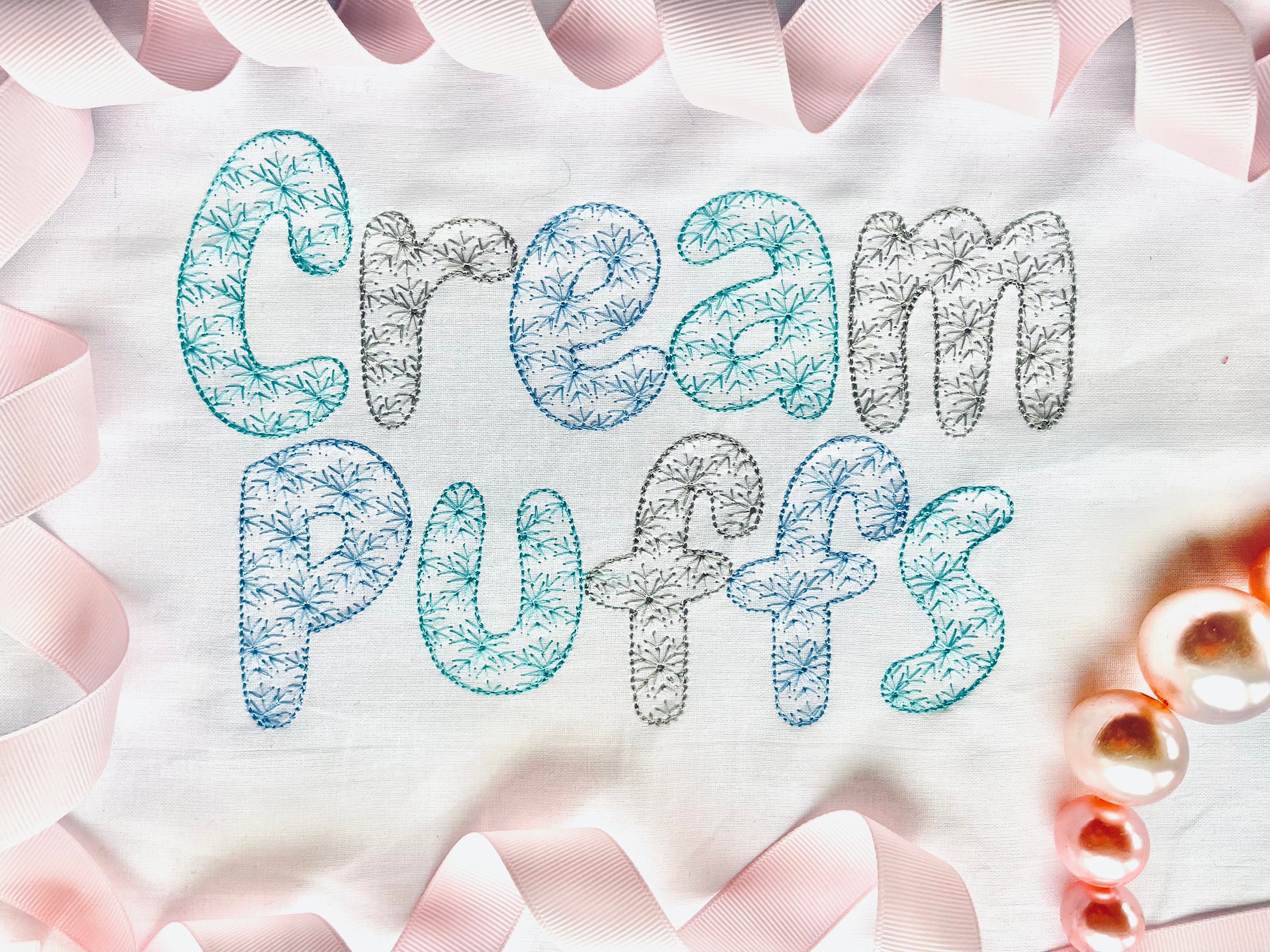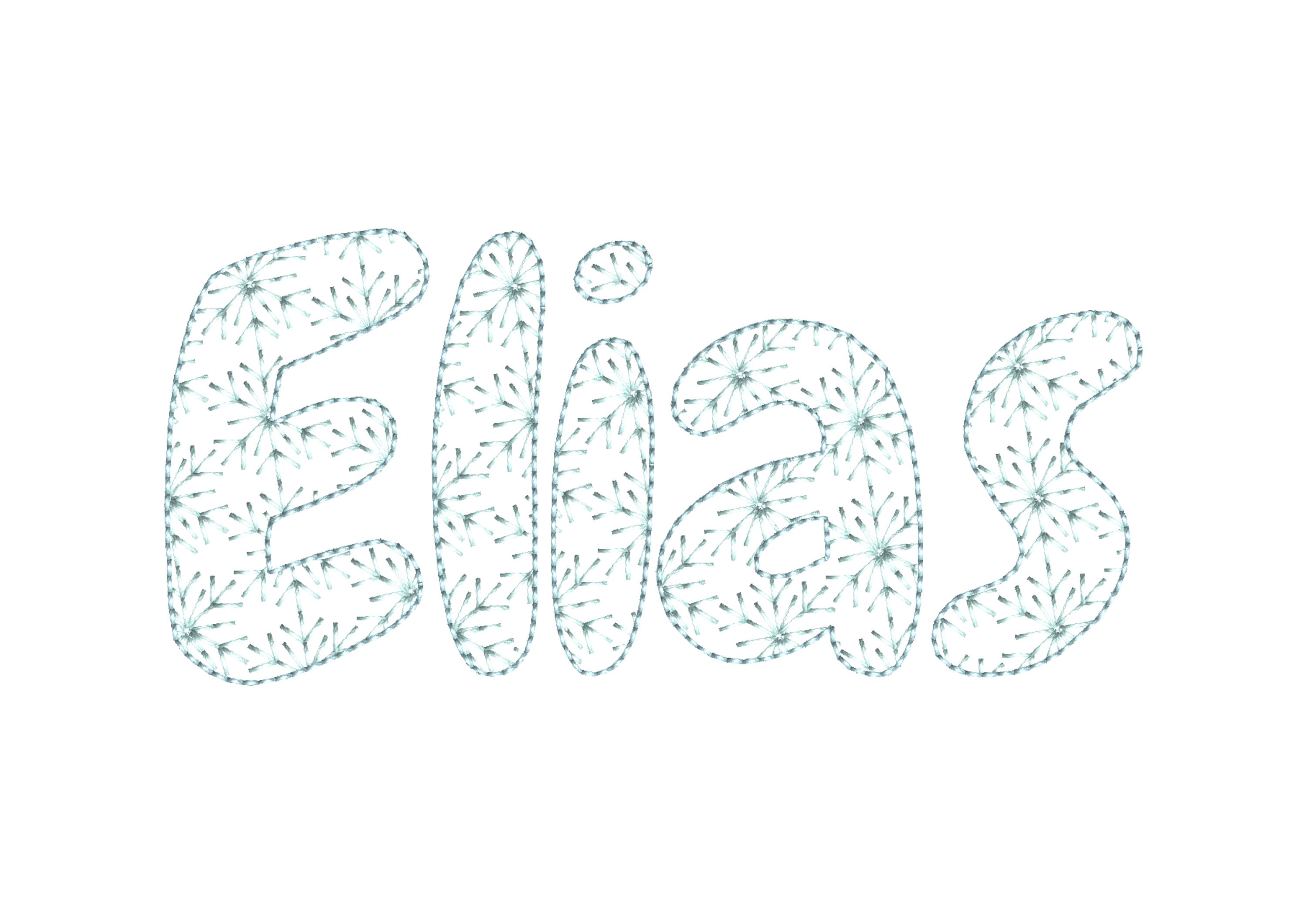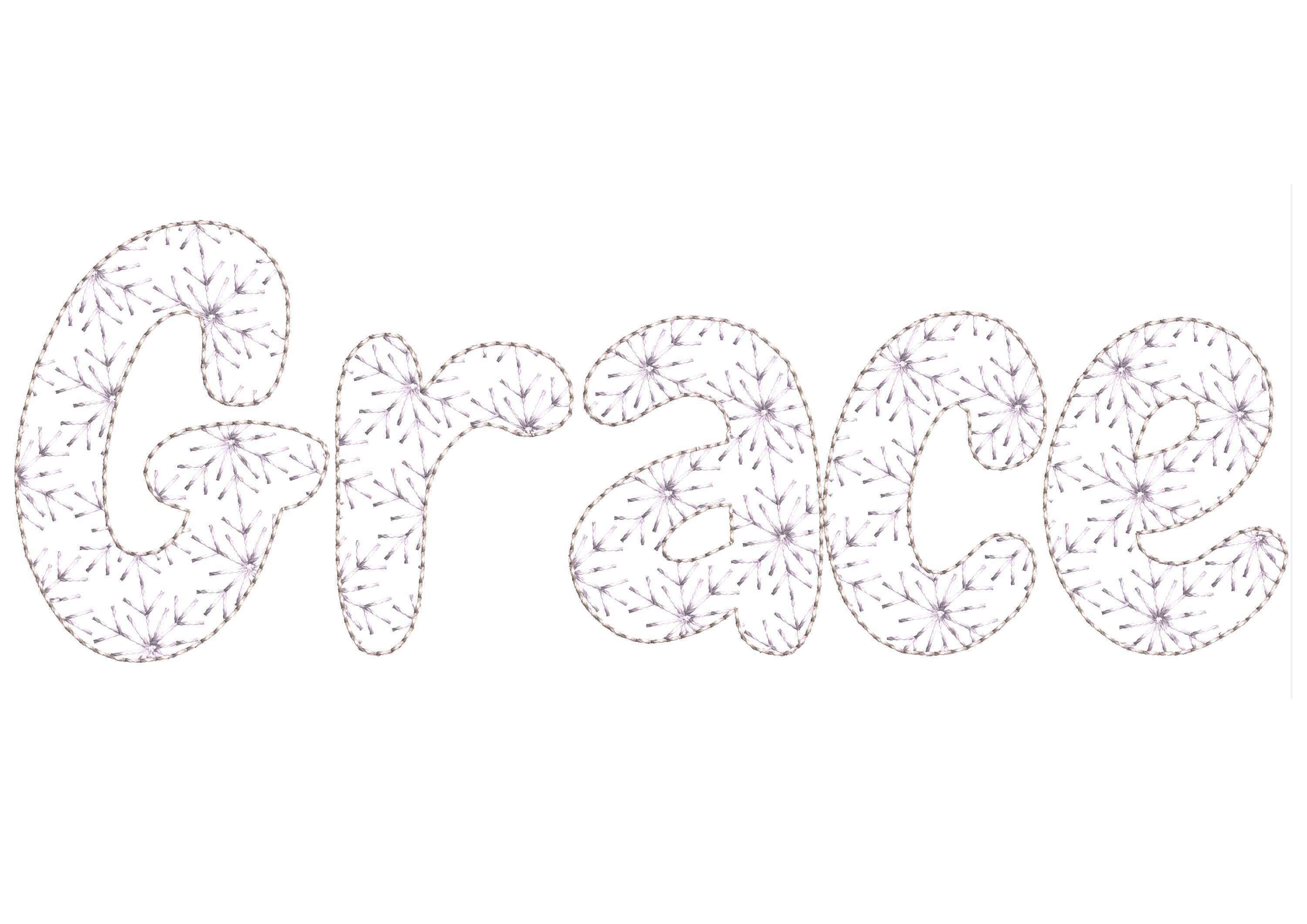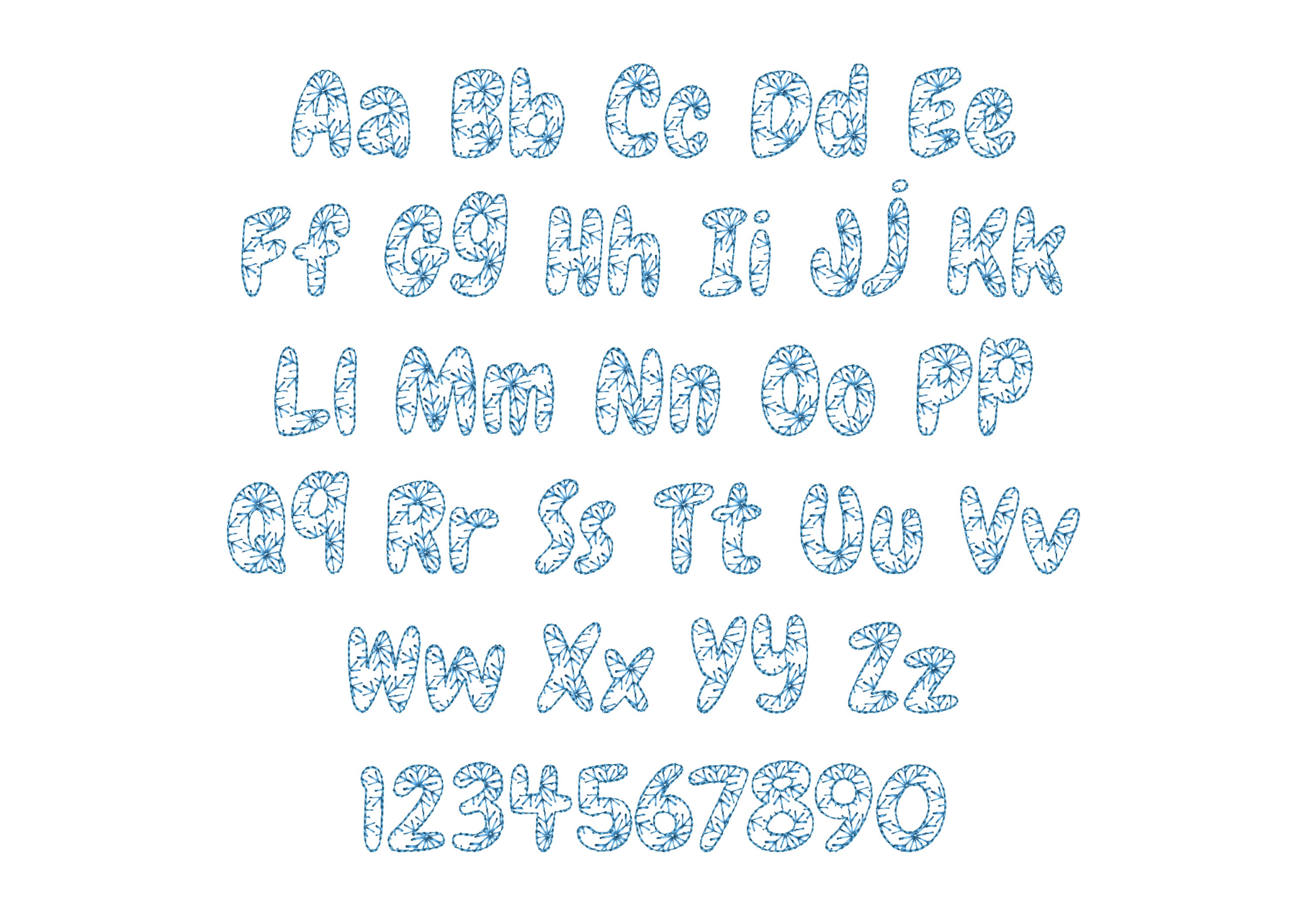
Frozen snowflake snow light stitch delicate kids Font alphabet A-Z and numbers 0-9 machine embroidery designs from 1 thru 4 inches monogram name BX included
This is a transparent font, light stitch design, the fabric looks through. Awesome effect!
Uppercase and lowercase letters, and numbers 0-9